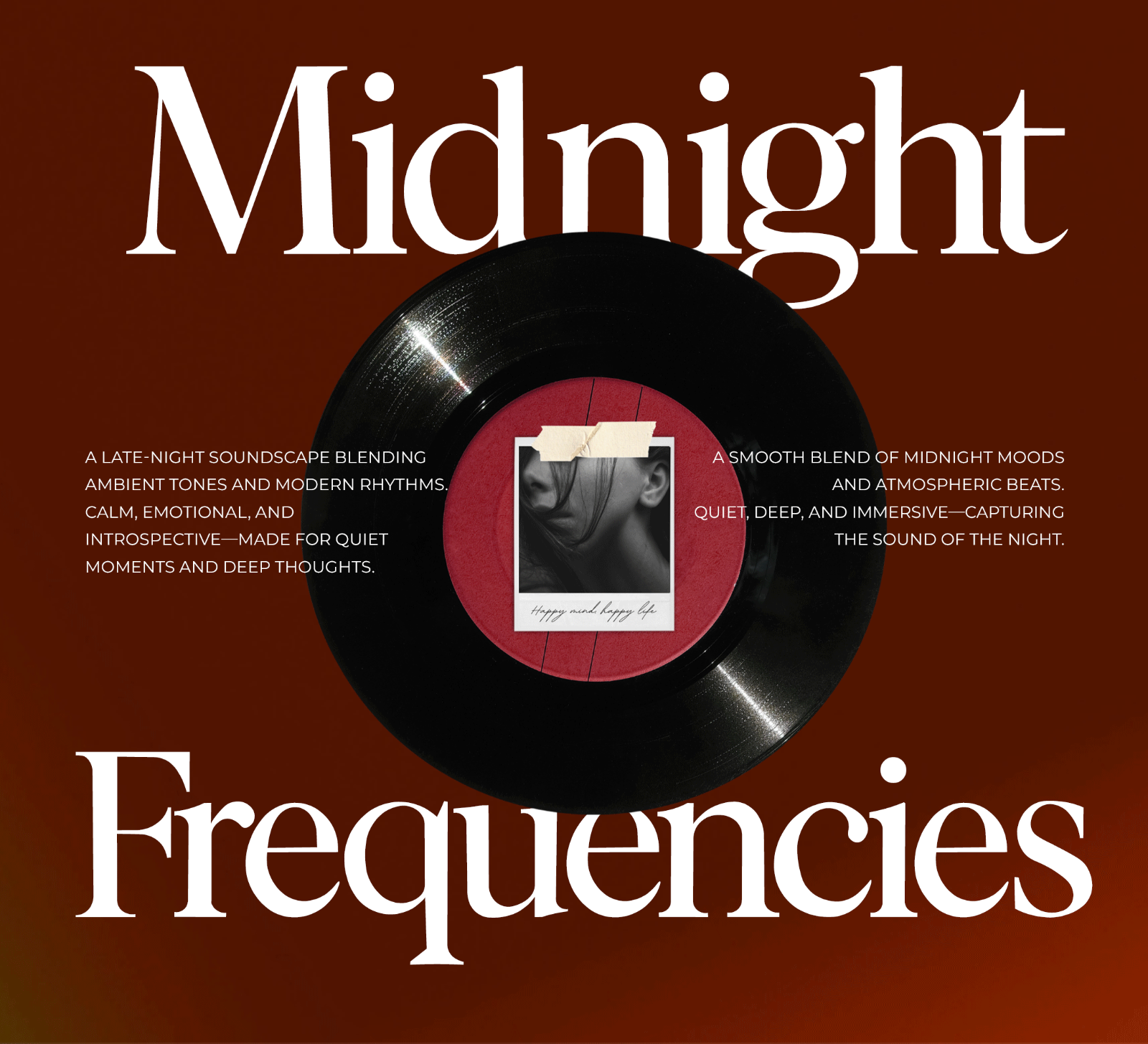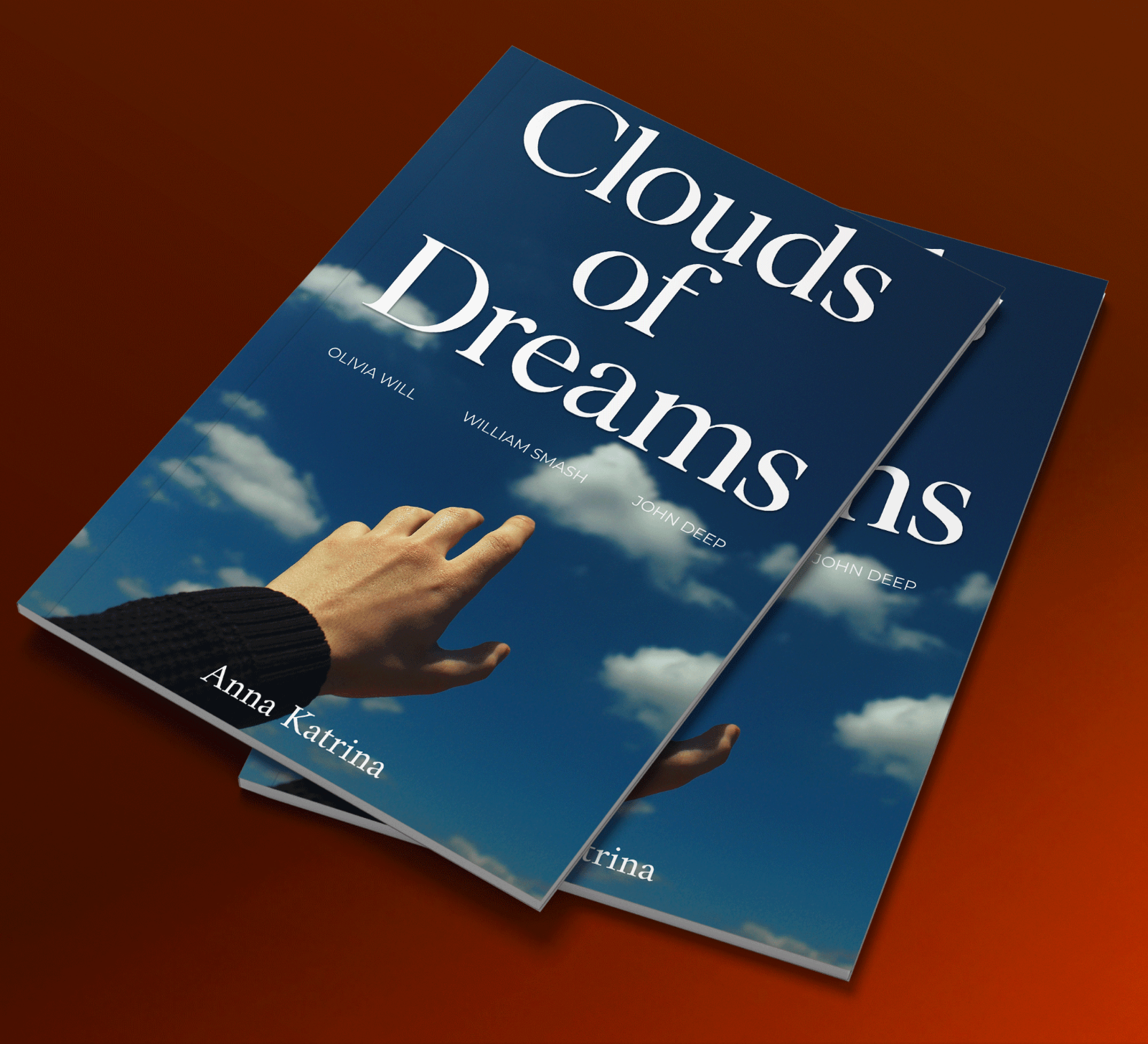
MarketplaceFontsOrvalesse – Modern Elegant Serif Font
Orvalesse is a modern serif font with bold letterforms, elegant curves, and a clean contemporary style. Its distinctive shape gives every design a refined, stylish, and professional appearance.
• Branding
• Logos
• Business cards
• Blog headers
• Quotes
• Editorial titles
• Packaging
• Creative typography
Compatible with Windows and Mac, Orvalesse is a great choice for branding and display projects that need a modern, elegant, and memorable serif look.